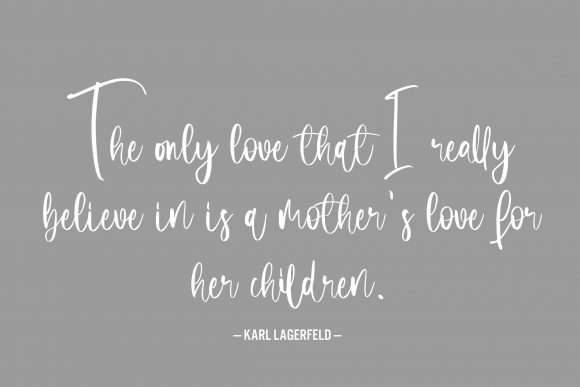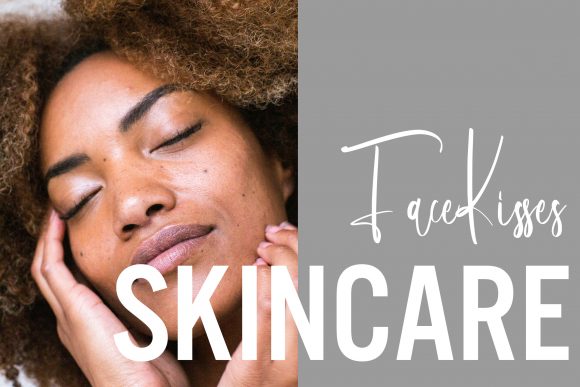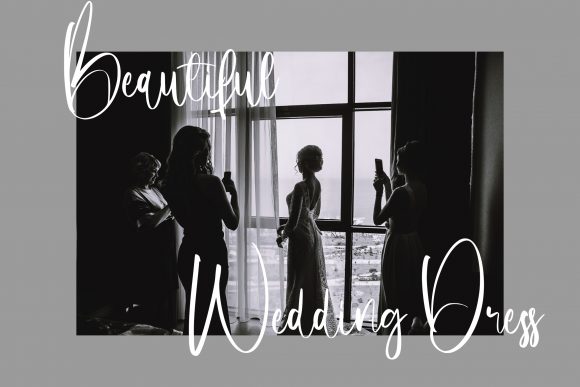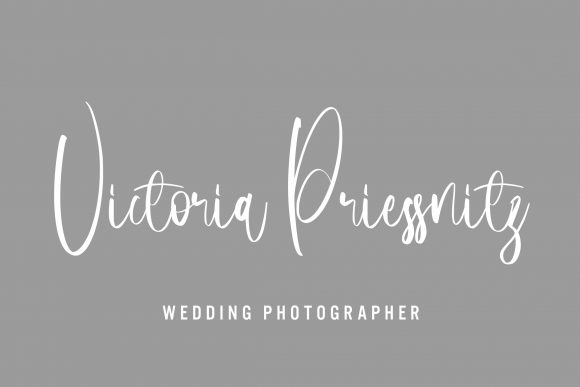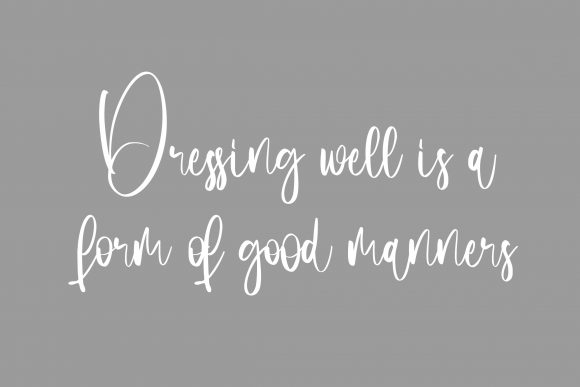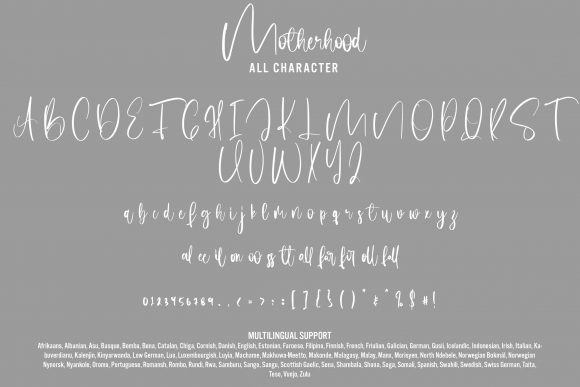
Introduction to Motherhood Font
Have you ever been stuck on a creative project, searching for the perfect font to bring your design to life? I know I have. It’s that moment when everything else seems to fall into place, and you’re just one click away from achieving the look you envisioned. For designers, finding the right font can be the difference between a good design and an exceptional one.
That’s where the Motherhood Font comes in – a lovely and timeless handwritten font that’s perfect for creating eye-catching logos, branding, and quotes. With its unique and beautiful touch, this font is sure to elevate your design to the next level. And the best part? It’s available for free download, making it an invaluable resource for any design project.
Key Features of Motherhood Font
- High-quality design resource with a unique, feminine touch, perfect for creative projects
- Designed to be versatile and suitable for a wide range of creative projects, from branding to editorial design
Honest Review: Motherhood Font
I recently came across the Motherhood Font and I must say, it’s a lovely addition to any design resource collection. The font is perfect for any creative project that requires a touch of warmth and elegance. The high quality of the font is evident in its crisp lines and beautiful letterforms.
The font features a transparent background, which makes it easy to use on any design surface. I appreciate the simplicity and minimalism of the design, making it perfect for a variety of applications.
Here are some things that work well with the Motherhood Font:
- ✨ High-quality design that looks great on any device
- ✨ Versatile and can be used for a variety of creative projects
- ✨ Easy to use with a transparent background
- ⚠️ Limited number of styles and weights available
- ⚠️ May not be suitable for use in bold or large font sizes
Overall, I’m impressed with the Motherhood Font and would definitely recommend it to designers looking for a high-quality, elegant font for their creative projects. It’s a great free download that’s perfect for adding a touch of sophistication to any design.
The Motherhood Font is a beautiful, high-quality design resource perfect for any creative project. With its transparent background and elegant design, it’s a great addition to any design portfolio.
Use the Motherhood Font in combination with other design elements to create a cohesive look. Experiment with different font sizes, colors, and styles to add depth to your designs.
The Motherhood Font is perfect for:
Baby shower and nursery decor
Family business and personal branding
Any project that celebrates motherhood and family
The Motherhood Font is a beautiful and versatile design resource that can add a personal touch to any creative project. With its transparent background and high-quality design, it’s a great addition to any design portfolio.